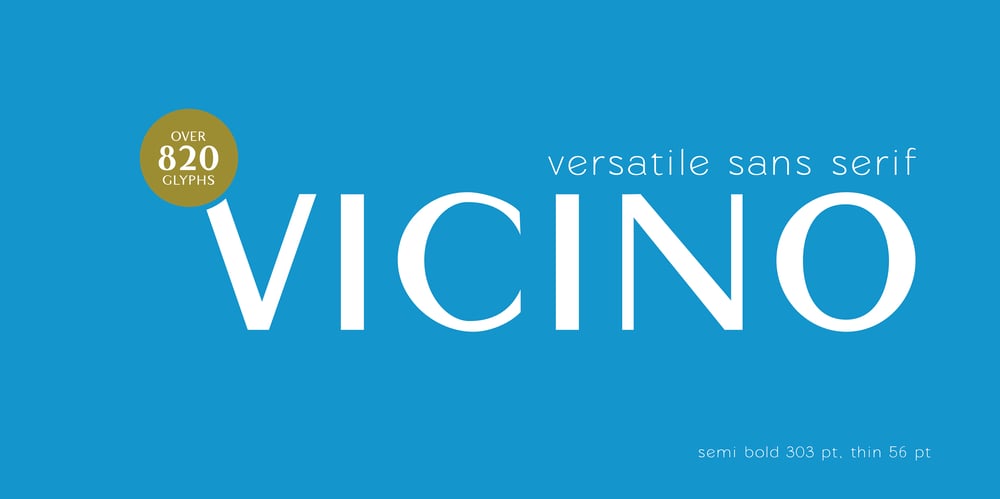
Vicino Font Family was designed by Aga Silva and published by Aga Silva. Vicino contains 25 styles and family package options. Vicino means a neighbour in Italian, someone who lives nearby, someone usually unassuming and easily approachable. Someone who can save your day big time. Vicino has 25 fonts included. Each weight and style of this family has over 820 glyphs which gives you extended language support (incl. Tieng Viet). Vicino is well suited for graphic design and any display use. Vicino font is versatile, can be used both in blocks of text as well as headers or display type.